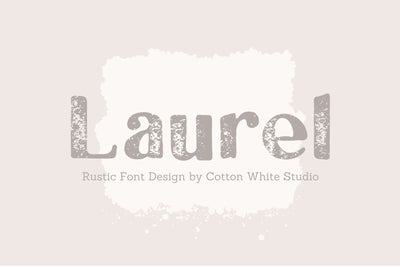
Laurel
Laurel is a handmade font with a rustic look that comes in 2 versions. Perfect for creating t-shirts, mugs, marketing materials, home decoration, and so much more.
⚠️Note! This is a heavily distressed font. This font is good for creating print, web and sublimation designs. This font is NOT good for cutting machines.⚠️